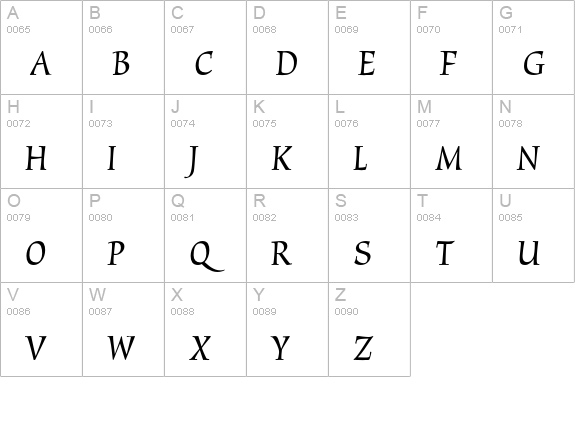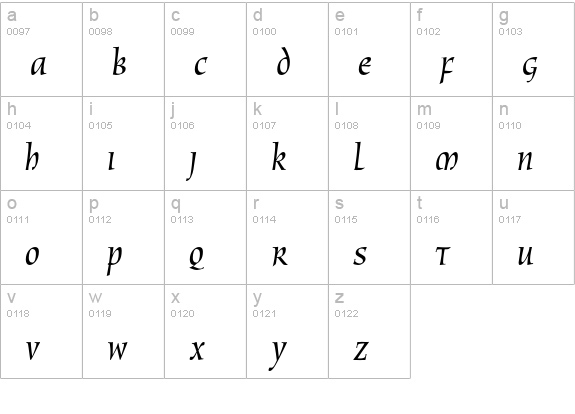
Oxford Font Details
The Oxford font is a classic yet modern typeface that exudes sophistication and elegance. Its sleek lines and clean design make it perfect for a wide range of design projects, from branding to editorial layouts. The versatility of the Oxford font allows it to be used in both digital and print applications, making it a valuable addition to any designer's toolkit. What sets the Oxford font apart is not only its timeless aesthetic, but also the fact that it is available for free download at FontsMarket.com. This means that you can access this high-quality font without any cost, making it a great option for both personal and commercial projects. Whether you're looking to elevate your branding or add a touch of refinement to your designs, the Oxford font is a fantastic choice that won't break the bank. Download it today and start creating stunning visuals with ease.